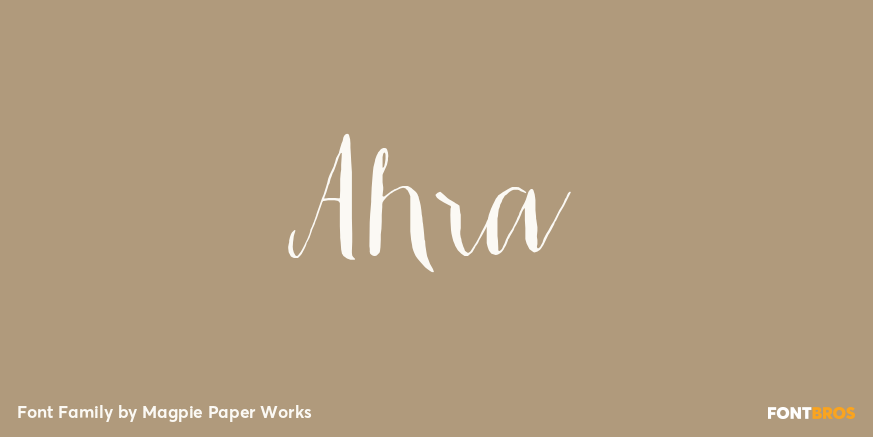
Ahra
About Ahra
Ahra from Magpie Paper Works is an upright, hand-lettered script full of fun calligraphy. This Opentype font was created with a pointed pen & ink, and features a host of special features. Within Ahra are three sets of capital letters, ranging from simple…